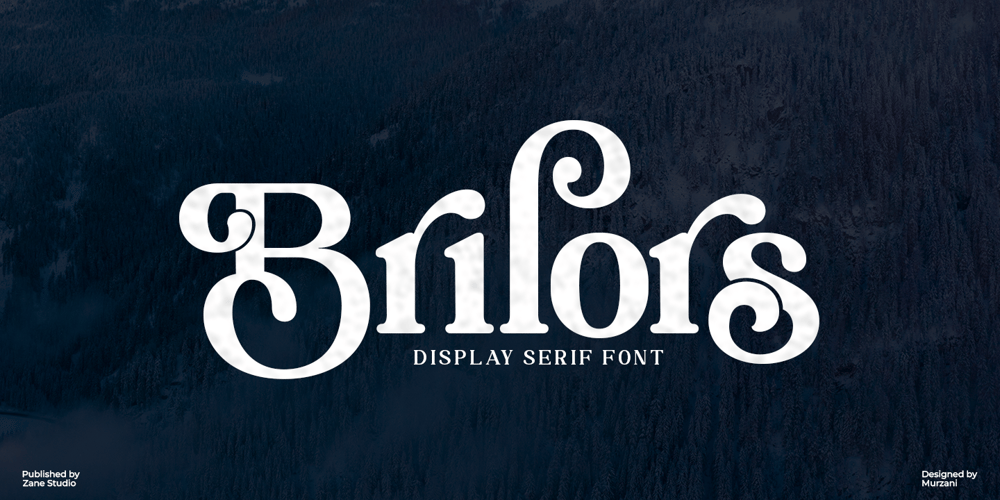
Brilors Font Family was designed by Mur Zani and published by Zane Studio. Brilors contains 1 styles and family package options. Start a good day for a new font! present to you, Sunny!Brilors is a stylish font. It has a modern and retro look – clear, modern and fun. Help create layout designs in 60’s or 70’s design projects.This font has over 50 unique alternatives and binders that give your logo, business cards and other projects a unique vintage look.Unique fonts Works on PC & Mac Simple installation Accessible in Adobe Illustrator, Adobe Photoshop, Microsoft Word even works in Canva! PUA Coded Characters Fully accessible without any additional design software.I really hope you will enjoy using the Brilors font and that it will be the perfect addition to your font collection! If you have some questions, please write me a letter!Please try!Zane Studio